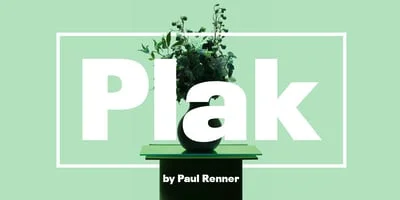
Plak Font
Plak Font is ideal for music industry branding, record labels, vinyl shops, audio equipment companies, entertainment venues, retro design projects, and nostalgic music communications. This distinctive typeface brings vintage music charm and analog warmth to audio-inspired design applications.
Plak Font is exciting because it captures the essence of vintage vinyl records with its distinctive letterforms that evoke the golden age of analog music while maintaining contemporary functionality and exceptional appeal across music and entertainment applications.
The Plak Font family includes multiple weights and vintage styling variations that reflect the authentic character of classic record typography. This musical collection provides designers with nostalgic options for creating memorable and authentically vintage brand experiences.
Plak Font provides access to a musically crafted typeface that embodies the warm nostalgia and authentic character of vintage vinyl records and analog music culture. This distinctive font features carefully designed letterforms with retro details that create immediate associations with classic music, analog warmth, and vinyl record heritage. The typeface showcases vintage proportions and musical aesthetics that enhance music communications while maintaining professional functionality. Its nostalgic character makes it particularly suitable for music brands and entertainment venues that require typography capable of conveying musical heritage, analog authenticity, and vintage music culture. Plak Font delivers exceptional musical impact for applications where modern fonts lack the vintage charm and analog character necessary for authentic music communications. The font's musical appeal and vintage aesthetic make it an essential tool for designers working on projects that require typographic expression of music heritage, vinyl culture, and analog authenticity that resonates with audiences seeking genuine musical experiences and vintage audio nostalgia.